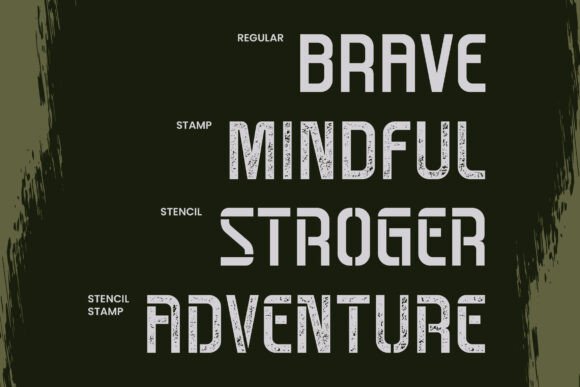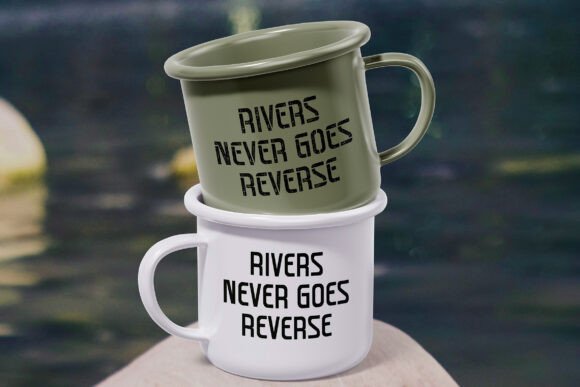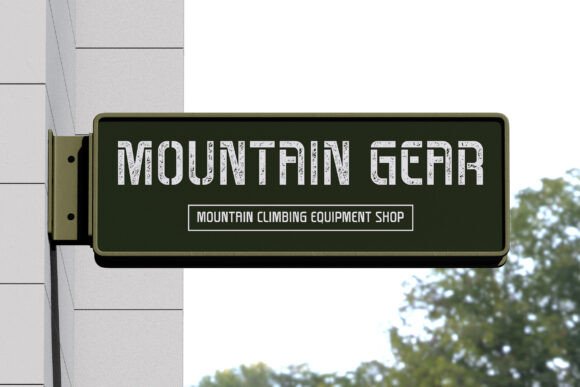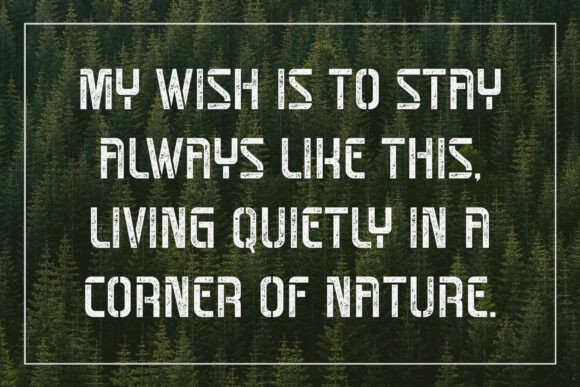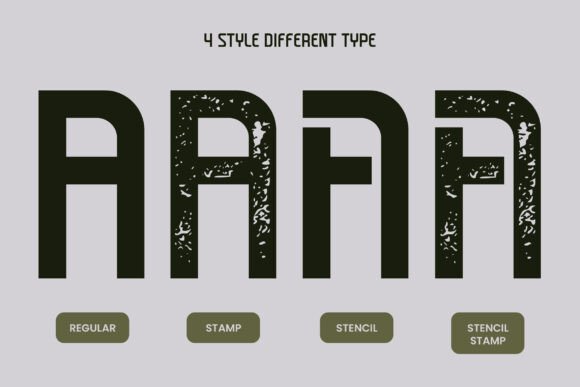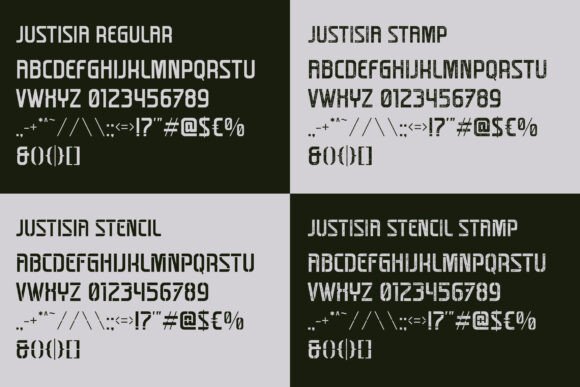
Introduction to Justisia Font
Immerse yourself in the rugged charm of Justisia, a mightily impressive sans serif display font.
Bursting with power and authority, Justisia is the masterstroke your visual designs have been missing With Justisia, youโre not merely choosing a font, youโre making a visual declaration.